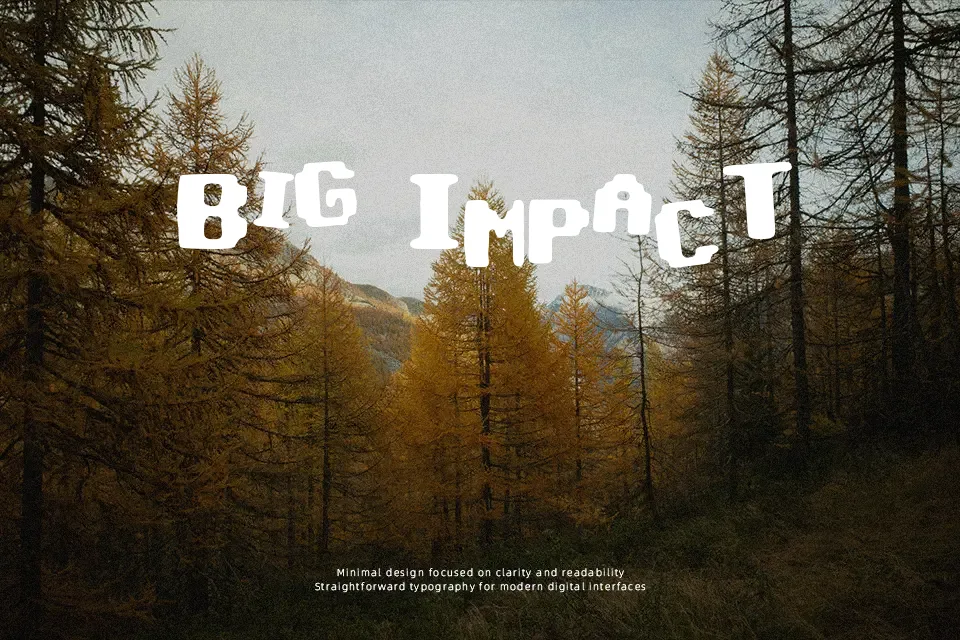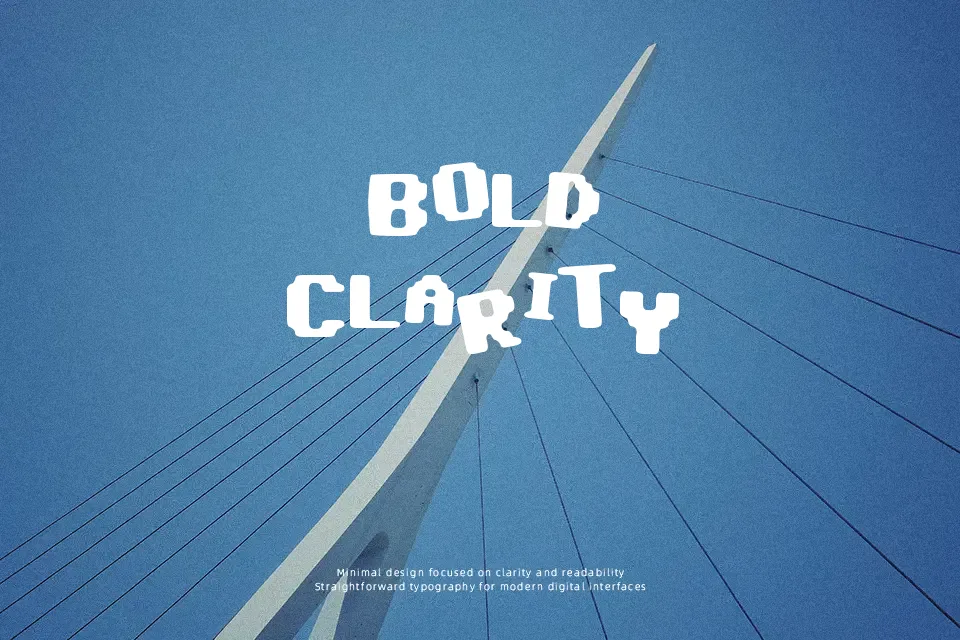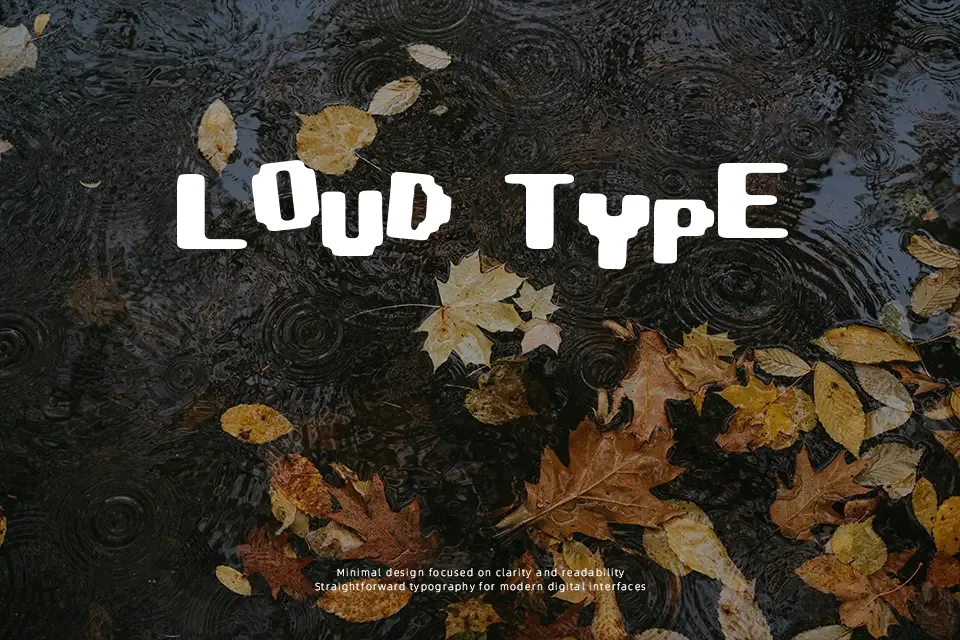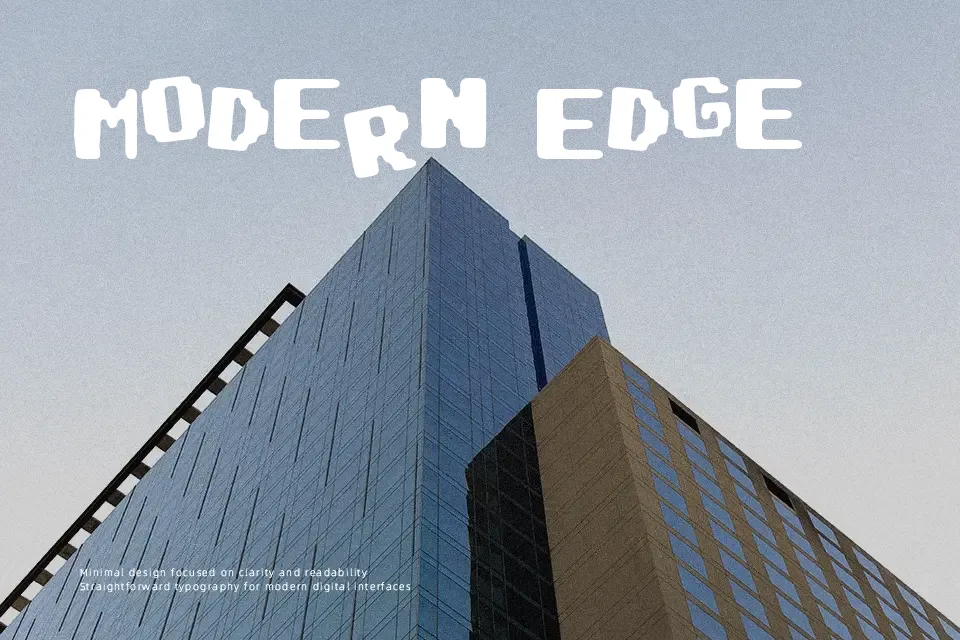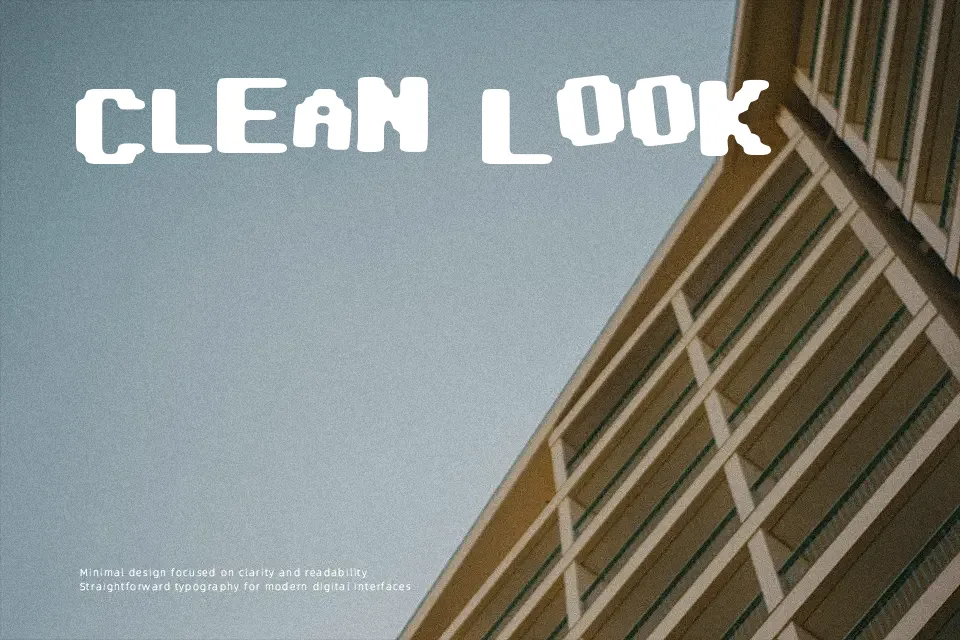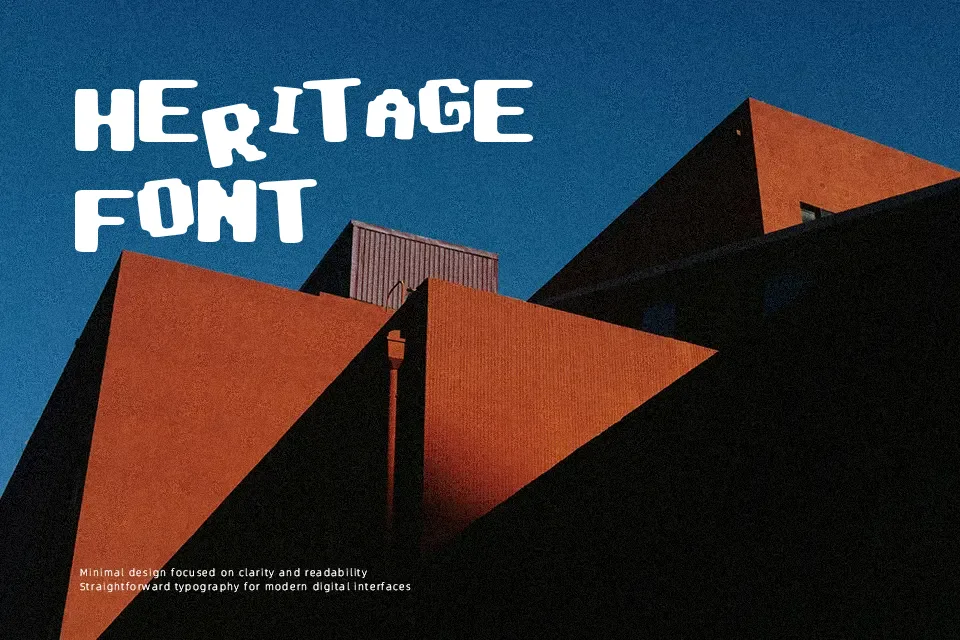
Pix Punk Font
Pix Punk Font uses heavy pixel-built shapes, uneven edges, and deliberately broken-looking details to create a rough digital display style. The letterforms are wide, angular, and consistently low in stroke contrast, with compact internal spaces that give words a dense silhouette. Uppercase, lowercase, numerals, and visible punctuation follow the same block-based treatment. It reads most clearly in short, large-scale phrases, where the spacing helps separate the distressed forms. The typeface is a practical choice for retro-tech graphics and game-inspired titles, but its dense decorative structure makes extended copy and small captions tiring to read.
Best For: retro arcade posters,indie game title screens,glitch-style social media graphics,music event headlines
Not Ideal For: long paragraph text,small interface labels,corporate reports,technical manuals
Perfect for gaming, headline, and music, with a creative and decorative style.